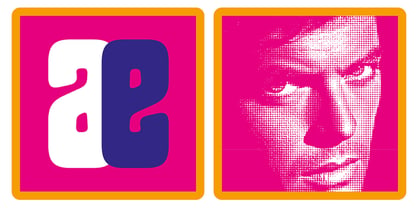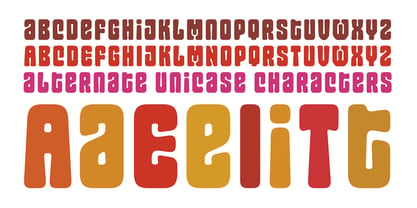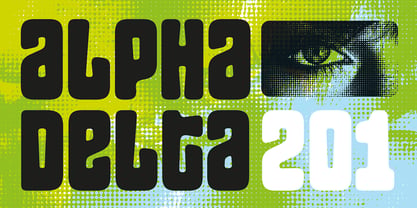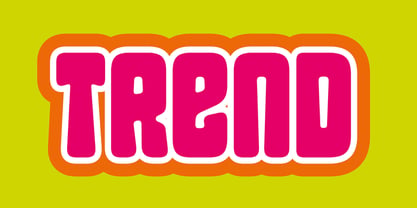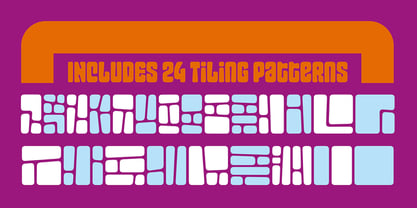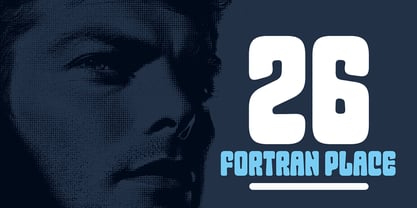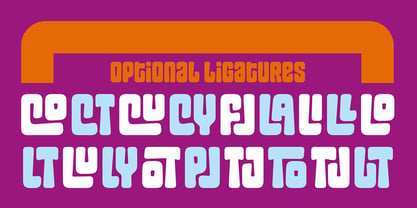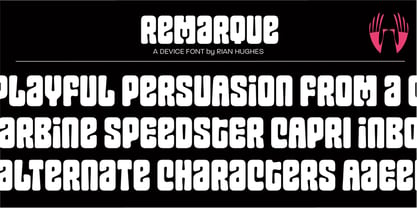
Remarque
The Remarque Font Family was designed by Rian Hughes and published by Device. Remarque contains 1 styles. More about this family
Remarque was inspired by the logo for The Persuaders!, a British television series starring Tony Curtis and Roger Moore as ill-matched adventurers. Initially broadcast on ITV and ABC in 1971, it was produced by the inimitable Lew Grade for ITC Entertainment.
The logo is based on a typeface called Dreamline, published as part of Mecanorma’s rub-down lettering range in 1969. This in turn was inspired by the lettering found on posters by Alfred Roller, a Vienna Secession artist and designer working in the early 1900s. These curvilinear Art Nouveau forms again found favour in the late 1960s and early 1970s.
Remarque is not a faithful revival but takes the underlying structure and irons out some of the ambiguities in the source material, straightening counters and curves and tapering uprights. The result is a playful modern compact font with many alternate characters and a set of interlocking ligatures.
A set of tiled abstract shapes are also included, available from the Glyphs palette. These can be used as decorative extras or repeated to generate patterns.
Stylish, lively and bold, it lends itself to packaging, merchandise, confectionery and posters.